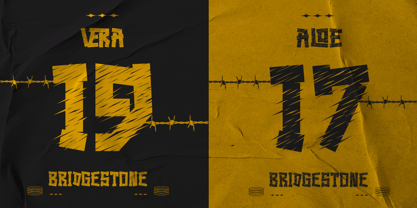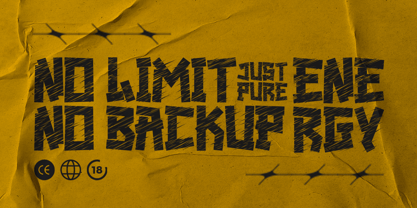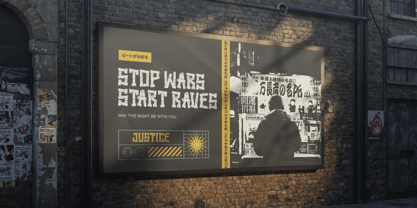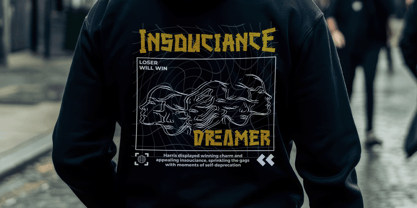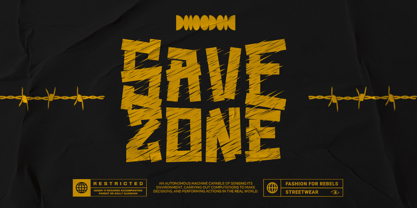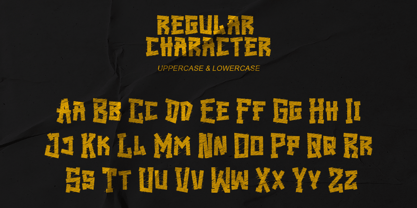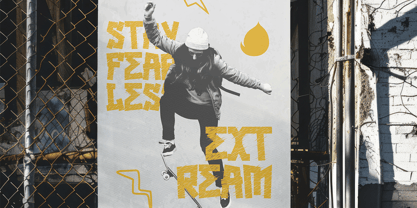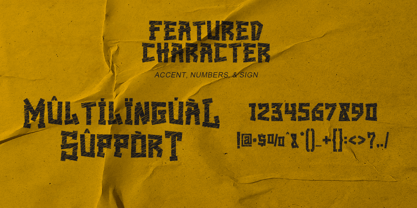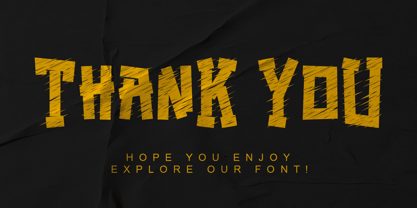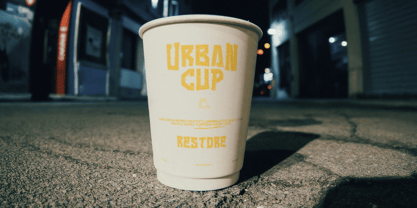
Retrera
Die Schriftfamilie Retrera wurde von Thomas Aradea entworfen und von Letterara veröffentlicht. Retrera enthält 2 Stile und Familienpaketoptionen. Mehr über diese Familie
Retrera is a bold grunge display font created for designs that demand raw energy, strong personality, and immediate visual impact. Its powerful geometric forms are combined with rough hand-sketched textures and dynamic cuts, giving every word an expressive, rebellious, and authentically distressed appearance.
Inspired by street culture, underground posters, extreme sports, industrial graphics, and alternative music artwork, Retrera is perfect for projects that need to look fearless, energetic, and impossible to ignore. Its strong letterforms work especially well in large headlines, logos, posters, packaging, and promotional graphics.